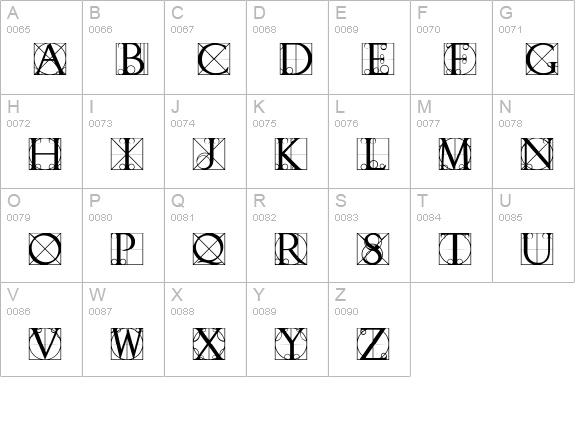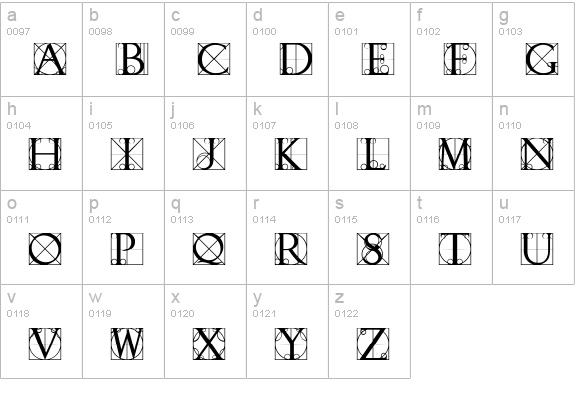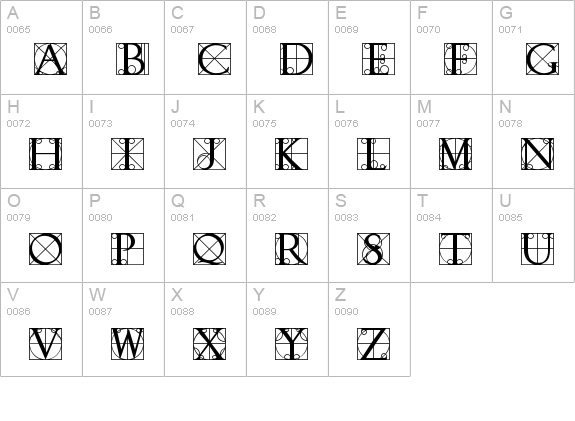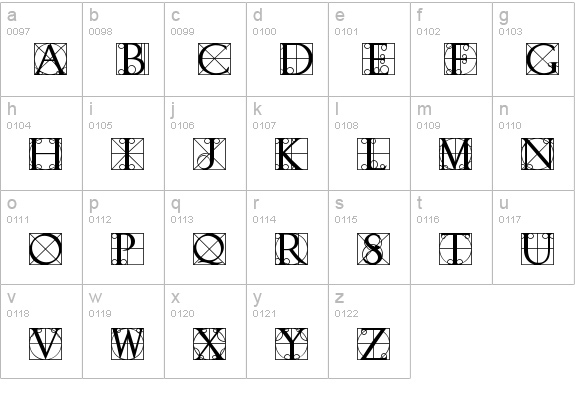
TypographerDisplay Font Details
TypographerDisplay is a stunning font with a unique and artistic design that will captivate the eyes of anyone who lays them upon it. This font is perfect for adding a touch of elegance and sophistication to your designs, whether it be for branding, advertising, or any creative project. The beauty of TypographerDisplay lies in its intricate details and fine craftsmanship. Each letter is meticulously crafted to perfection, featuring bold and strong lines that create a sense of power and authority. The spacing between the characters is carefully adjusted to ensure optimal legibility, making it a versatile choice for both large headlines and smaller text. One of the most remarkable aspects of TypographerDisplay is that it is absolutely free. Yes, you read that right! This exceptional font can be freely downloaded from FontsMarket.com, allowing you to enhance your designs without any cost. It is a true gem in the world of typography, offering a high-quality and professional look without the need to break the bank. Whether you are a seasoned designer looking to elevate your creations or a beginner exploring the world of typography, TypographerDisplay is a must-have in your font library. Its timeless appeal and versatility make it suitable for a wide range of projects, from logos and packaging to posters and invitations. Download TypographerDisplay now from FontsMarket.com and let your creativity soar. Express yourself with confidence and style, knowing that you have at your disposal a font that not only impresses but also fits your budget. Don't miss out on this amazing opportunity to enhance your designs and make a lasting impression.